Questions for Font Creators Part 2: Favorite Kanji Glyph 2
The question “What is your favorite kanji glyph?” was asked to staff at the Type Project.
In this article, answers referencing the kanji structure are presented.
- “東”:
The inside space between strokes and gravity of the font can be understood well.
- “愛”:
In addition to the fact that it is a frequently seen glyph, I think that typeface concepts, including type face, inside space between strokes, tightness, modulation, and features can be judged in a well-balanced way.
- Symmetrical characters, such as “立春大吉”:
Talking about minor details, they are not symmetrical, but I feel humanity in these parts, and if they are completely symmetrical, they are patterns and not characters. I like that kind of balance.
Kanji with a sweep on both sides, such as “水木東”:
I like them, because they give off a lively atmosphere and strength of hand-written characters with the organic sweep lines that extend to both sides. I find these characters attractive in particular in typeface with design maintaining the texture of brush and hand writing.
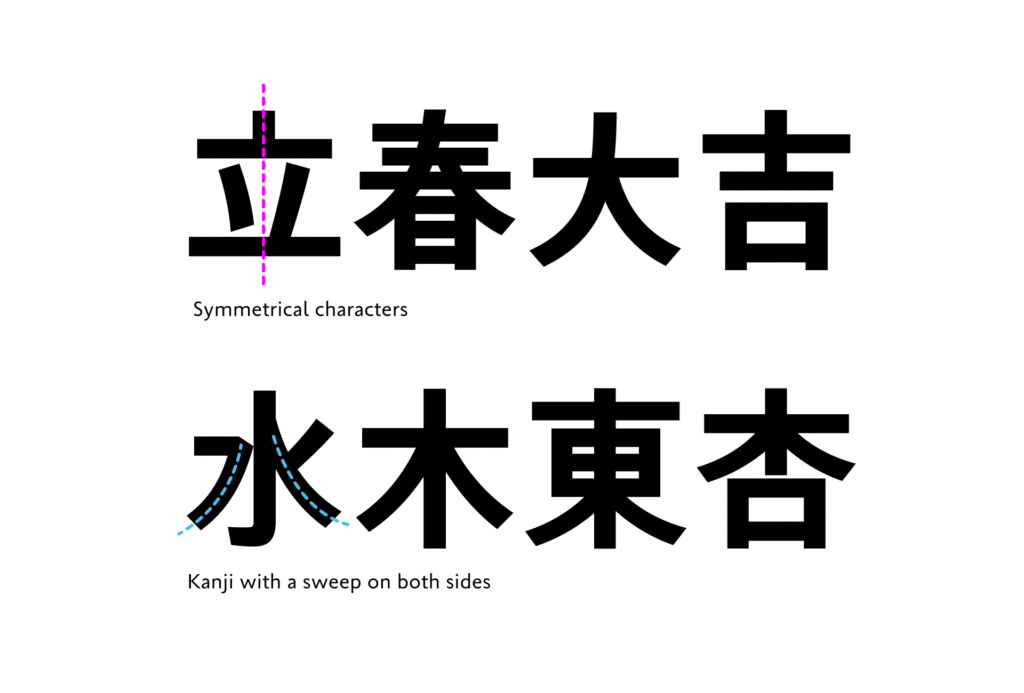
In kanji creation, we can see that each kanji is not looked at as a single unit, but an element that structures each glyph, and the balance for the entire typeface is adjusted.
From these answers, we can catch a glimpse of the perspective of creators who read the atmosphere of the entire typeface from one glyph, and unify glyphs with similar constituent elements, etc.